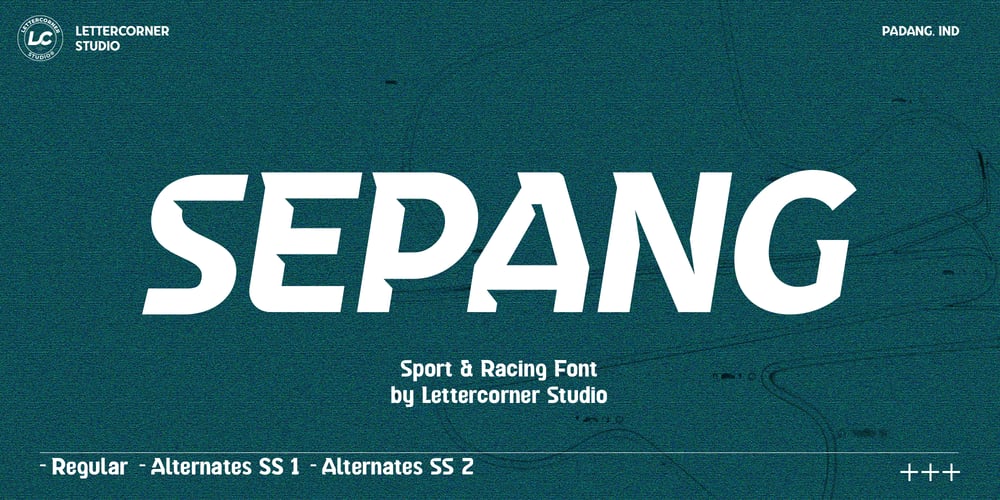
Sepang Font Family was designed by Muhammad Afif Ersya and published by Mevstory Studio. Sepang contains 6 styles and family package options. Sepang is a bold condensed serif display font that is inspired by sports. The slight slants in many of the characters give this font an athletic feel. Sepang can be used diversely, but is particularly best in logos and large typographic applications.